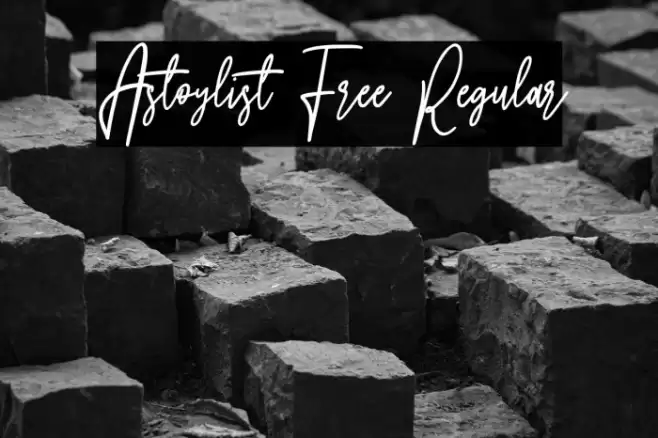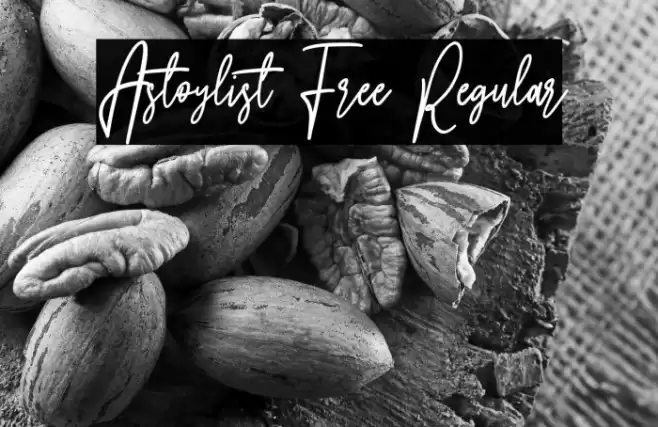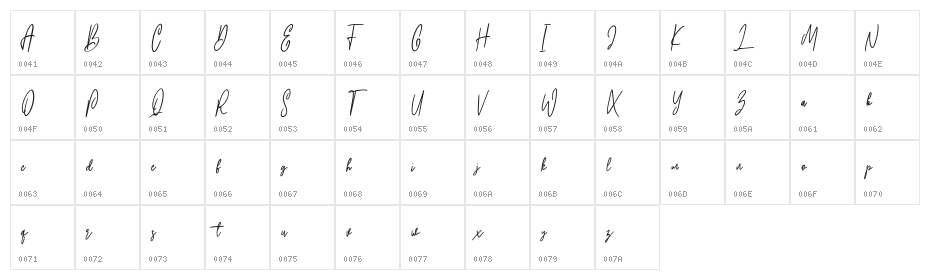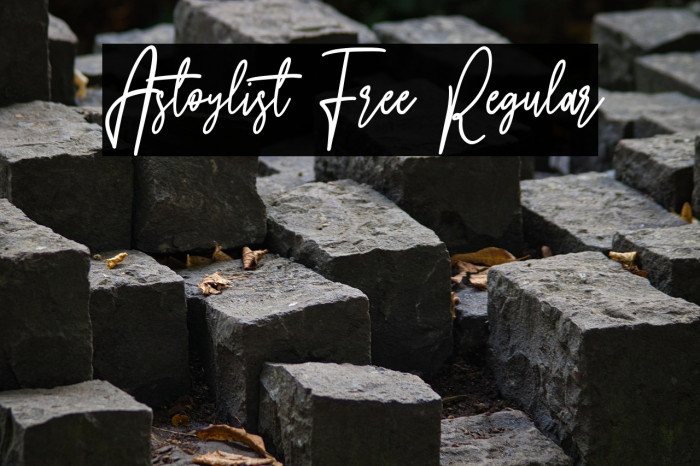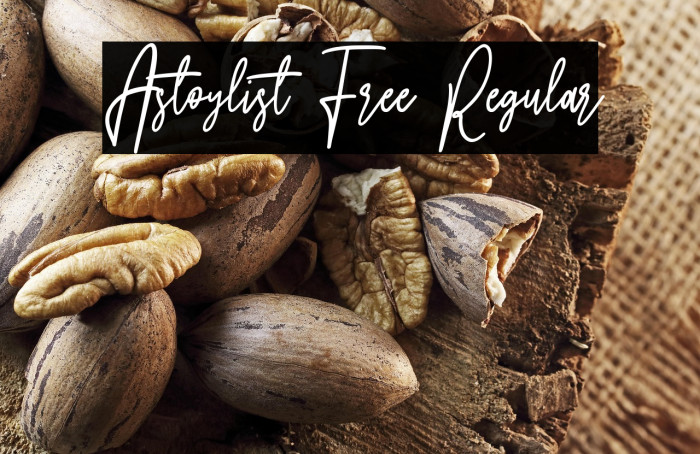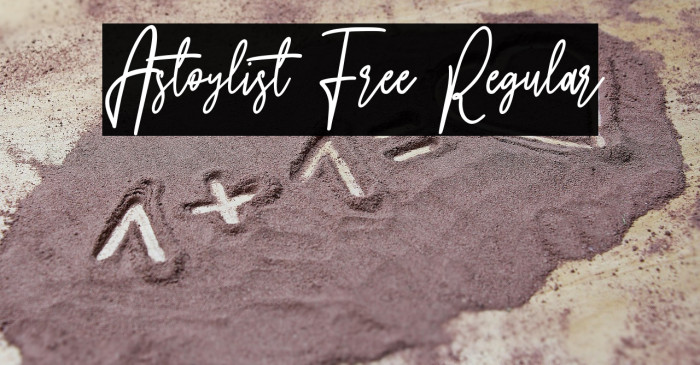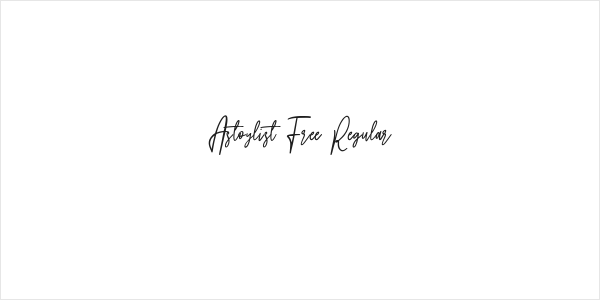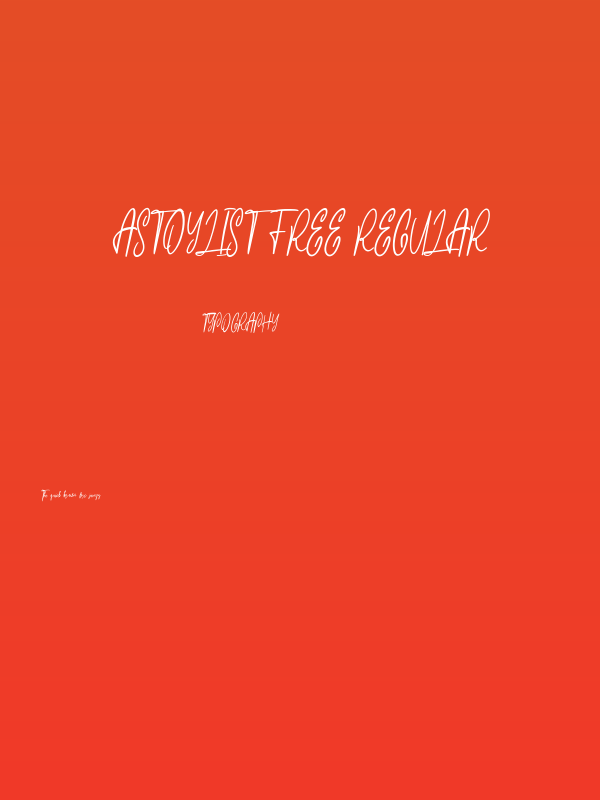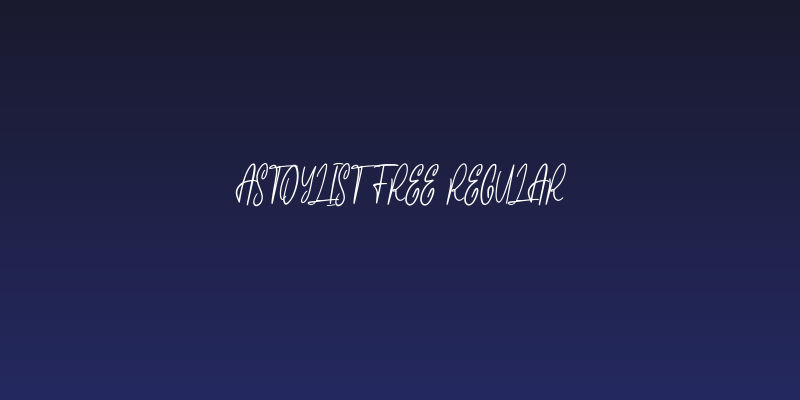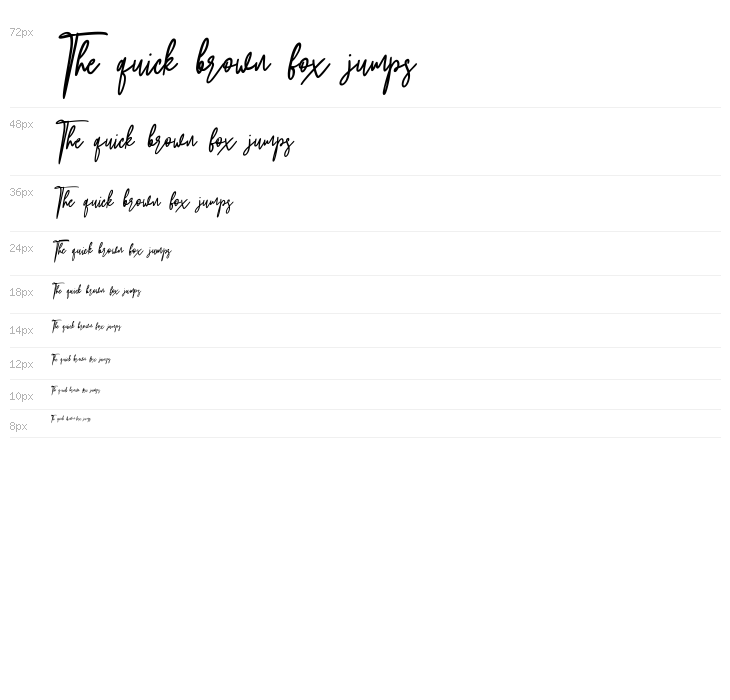
Astoylist Free Regular Font
Astoylist Free Regular Description
This font features a flowing, cursive style that exudes elegance and sophistication. The letters are interconnected, creating a seamless and fluid appearance. The uppercase characters are tall and slightly slanted, adding a touch of drama and flair. The lowercase letters maintain a consistent style, with smooth curves and loops that enhance the overall aesthetic. This font is perfect for projects that require a personal, handwritten touch, such as invitations, greeting cards, or branding materials. Its artistic nature makes it stand out, while still being legible and versatile.
A flowing, cursive font with elegant, interconnected letters from Regular fonts.
- Proposed Projects: Ideal for invitations, greeting cards, branding, and artistic projects.
- Overall Style: Elegant
- Use Case: Logos, Invitations, Artistic projects